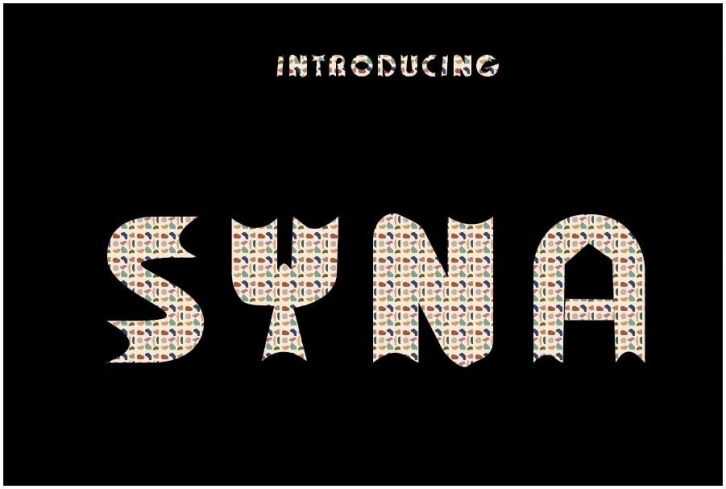
Syna is a bold and beautiful handwritten font with an incredibly authentic feel. This unique font will effortlessly turn any design project into a stand-out!